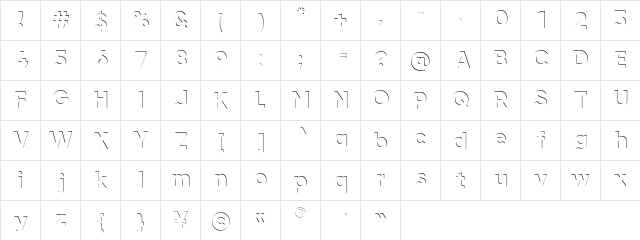
airment Regular
Design Context for airment Typeface
airment offers clean, dependable letterforms without strong stylistic allegiance, making it a practical choice for designers who need flexibility.